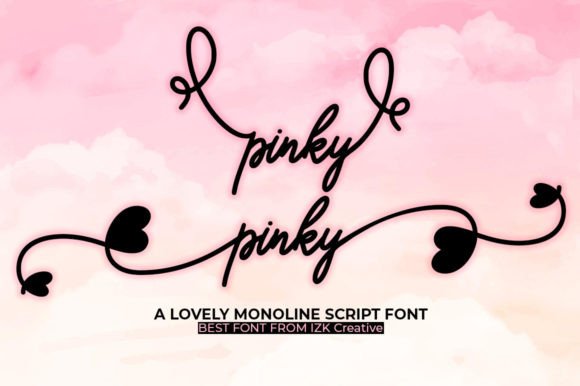
Let Pinky Script, a breathtaking calligraphy font, ignite the magic in your creative endeavors! Experience the allure of its graceful strokes, each letter a work of art, dripping with elegance and charm. Whether you're crafting wedding invitations that whisper romance, designing social media quotes that ooze sophistication, or creating custom SVG files that exude uniqueness, Pinky Script is your muse, your secret weapon to turn the ordinary into the extraordinary.
Unleash your inner artist and let your imagination run wild as you explore the limitless possibilities of Pinky Script. Design t-shirts that make a statement, stickers that spark joy, or even stunning logos that command attention. With its versatility, Pinky Script effortlessly blends with various design aesthetics, seamlessly enhancing your projects with a touch of timeless beauty.
This modern calligraphy font isn't just a collection of letters; it's an invitation to express yourself, to let your creativity flourish. Its enchanting curves and delicate flourishes evoke emotions, creating designs that speak volumes without uttering a single word. Embrace the power of Pinky Script and watch as your creations captivate audiences, leaving them in awe of your artistic prowess.
So, embark on this creative journey with Pinky Script as your guide. Let its enchanting essence elevate your designs to new heights, transforming them into masterpieces that leave an indelible mark on the hearts of those who behold them. Embrace the beauty, the grace, the allure of Pinky Script, and unlock a world of creative possibilities that will leave you breathless.